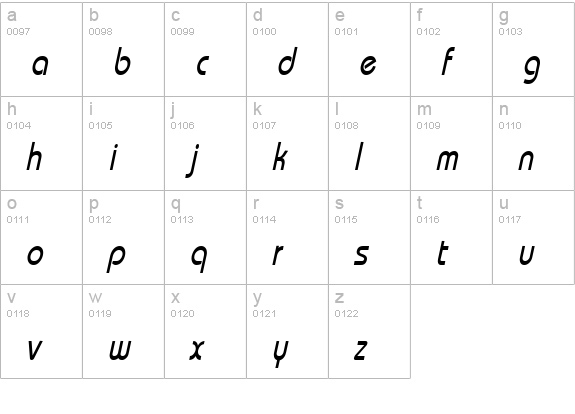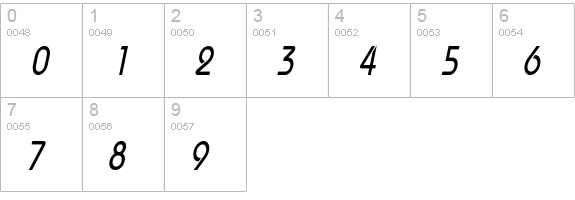
Bimini-Condensed Italic Font Details
Bimini-Condensed Italic is a distinctive, condensed-width, italic variant in the Bimini typeface family \xE2\x80\x94 well suited to design and typography projects.
Bimini-Condensed Italic is a sleek and modern font that exudes sophistication and elegance. Its slanted design adds a touch of flair to any project, making it perfect for headings, titles, and branding materials. With its condensed style, Bimini-Condensed Italic allows for efficient use of space without compromising readability. This versatile font is ideal for a wide range of applications, from print materials to digital designs. Whether you're creating a sleek website, a stylish poster, or a professional presentation, Bimini-Condensed Italic will elevate your project with its contemporary aesthetic. The best part? Bimini-Condensed Italic is completely free to download at FontsMarket.com. This means you can easily access this high-quality font and enhance your designs without breaking the bank. Don't miss out on the opportunity to add Bimini-Condensed Italic to your font collection today!